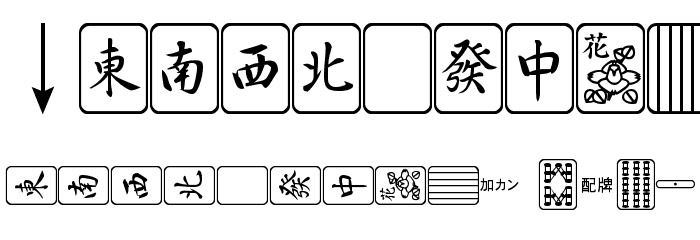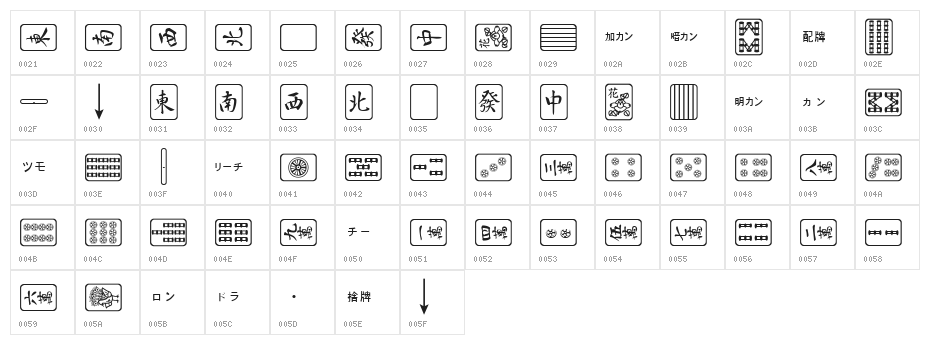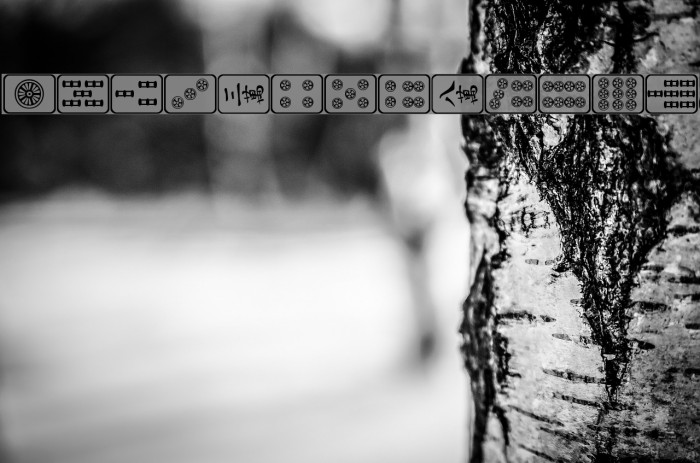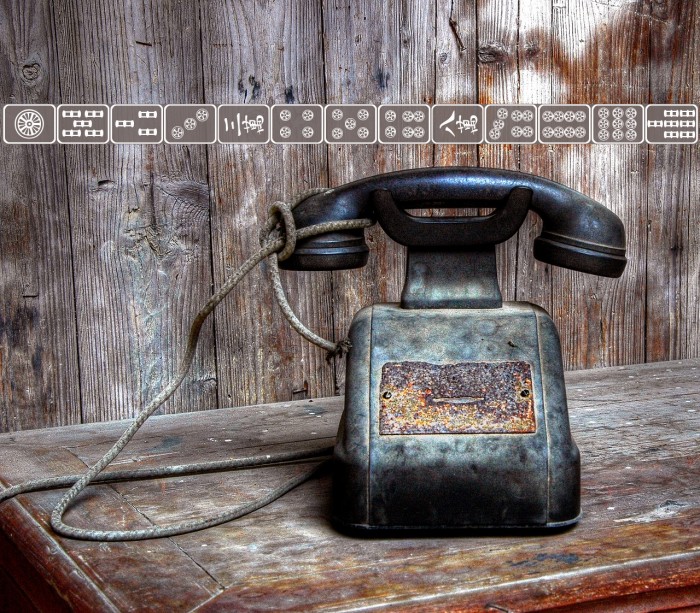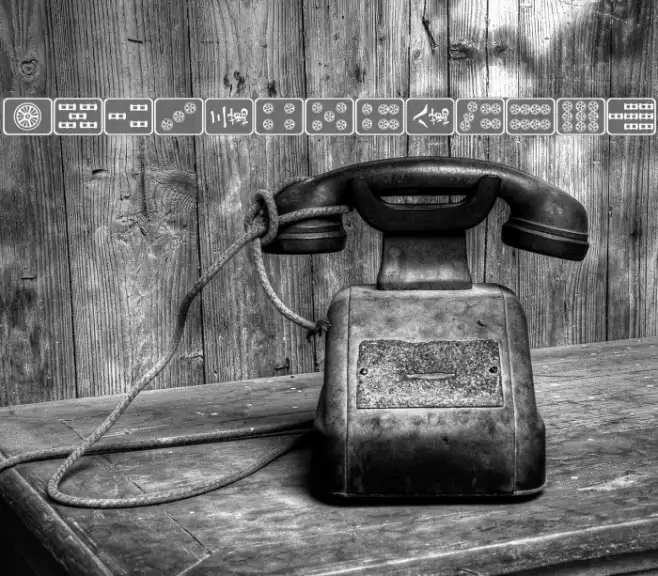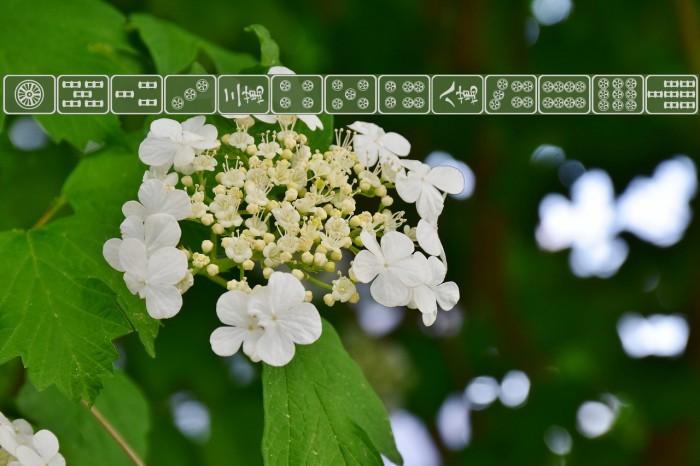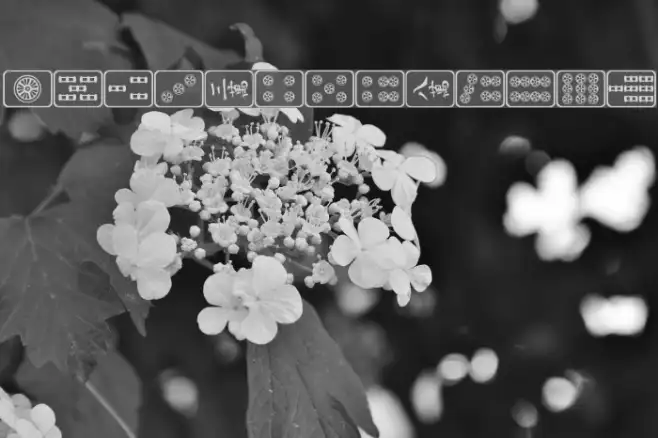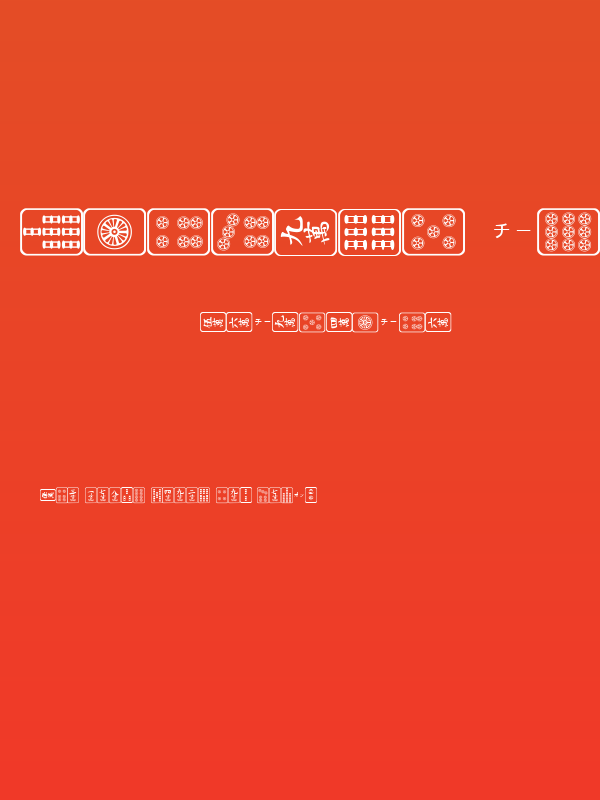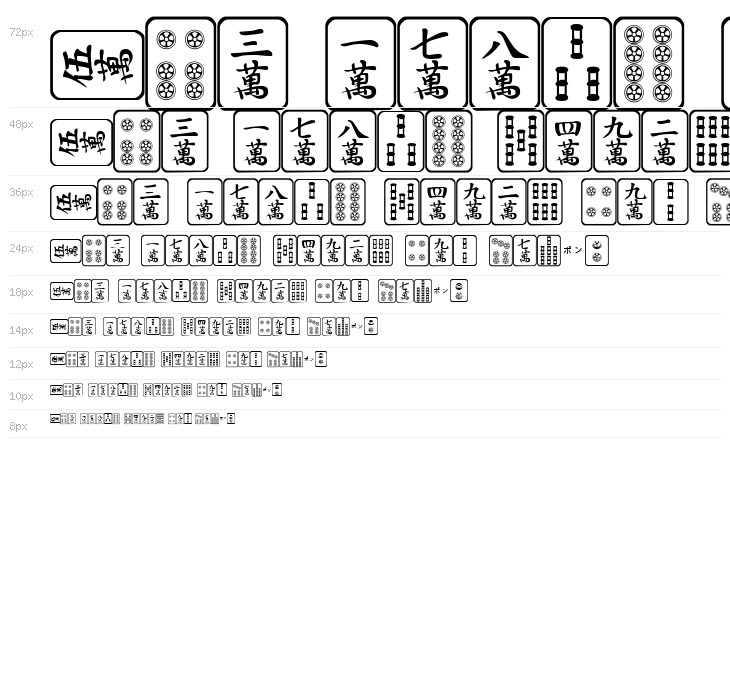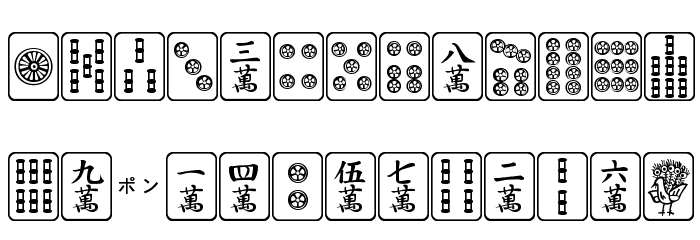
Mahjong Plain Font
Mahjong Plain Description
A decorative typeface mimicking traditional Mahjong tile engravings, featuring bold, geometric shapes and intricate line work. The glyphs are highly stylized, with some incorporating pictorial elements and East Asian calligraphic strokes, resulting in a playful and ornate appearance.
| Overall Style | Decorative, Playful, Thematic |
| Use Case | Logos, Headlines, Themed graphics, Game interfaces |
| Proposed Projects | Board game designs, themed posters, cultural event branding, educational materials about Mahjong. |